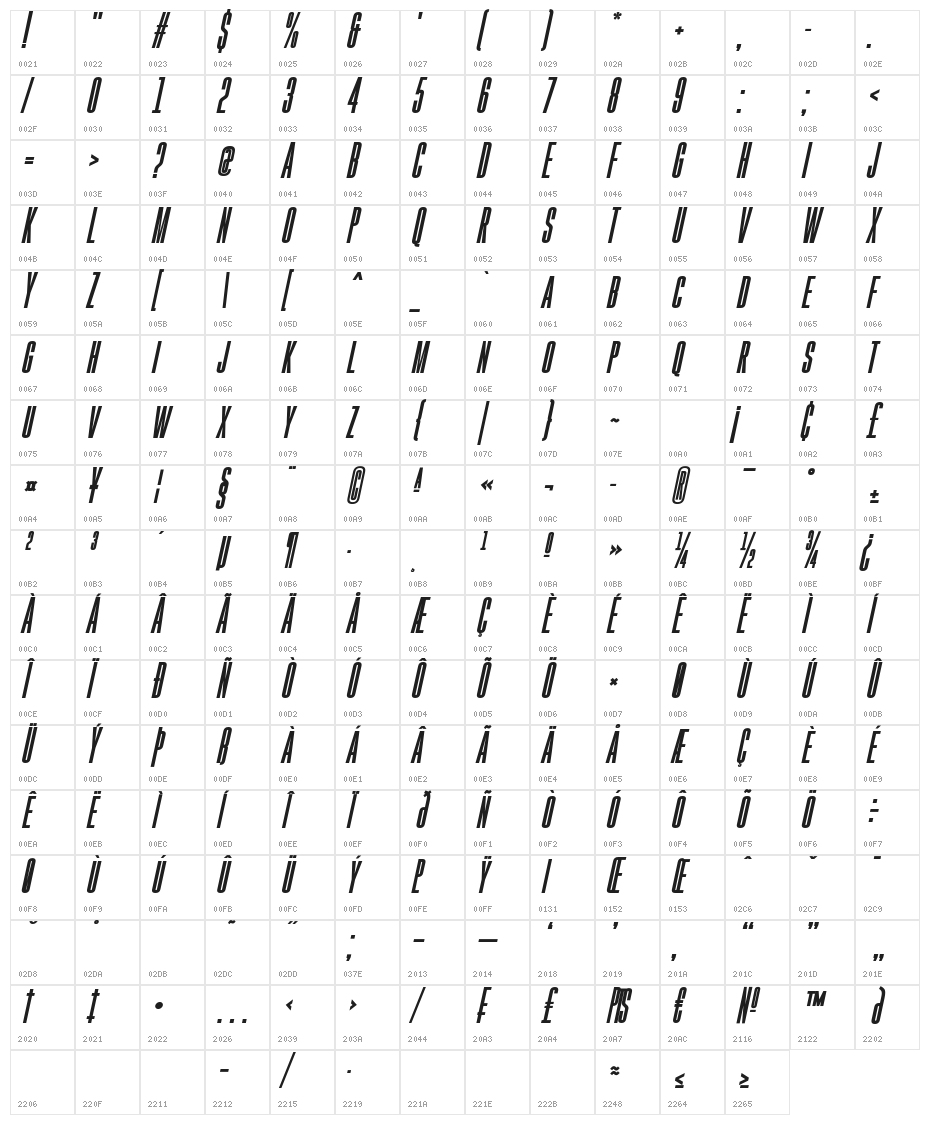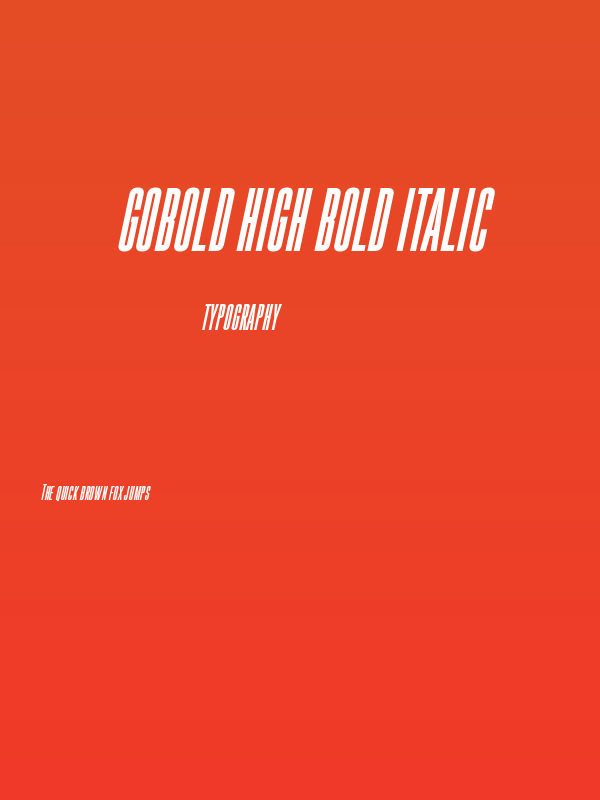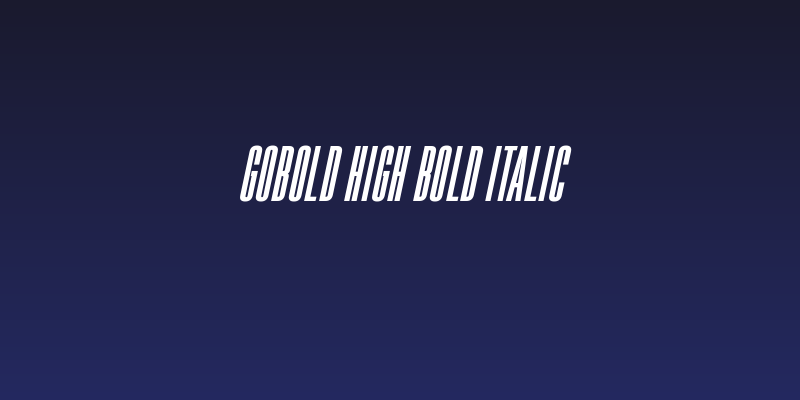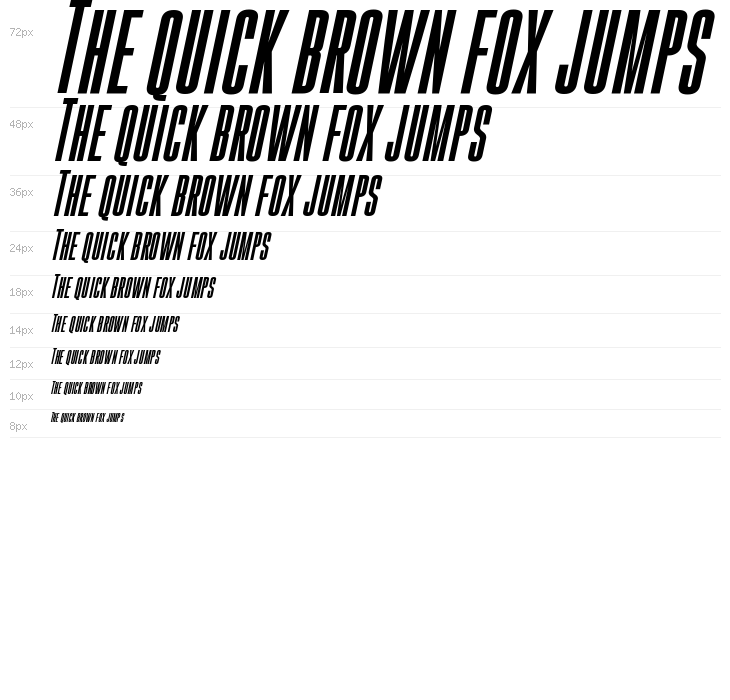
Gobold High Bold Italic Font
Gobold High Bold Italic Description
This font features a bold and italicized style with a strong, impactful presence. The characters are tall and narrow, giving a condensed appearance that emphasizes verticality. The strokes are thick and consistent, providing a high contrast that enhances readability and visual impact. The italic slant adds a dynamic and energetic feel, making it suitable for attention-grabbing designs. The spacing between characters is tight, contributing to its compact and cohesive look. This font is ideal for projects that require a modern and assertive aesthetic.
| Proposed Projects | Ideal for headlines, posters, branding, and advertising where a strong visual impact is needed. |